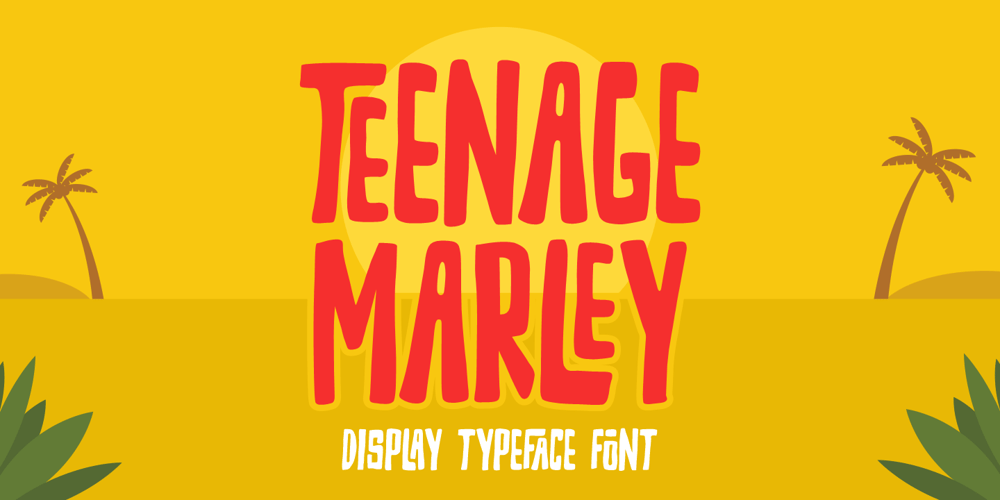
Teenage Marley Font Family was designed by Miftahul Habib and published by Teenage Foundry. Teenage Marley contains 1 styles and family package options. Introducing by Teenage Foundry!Teenage Marley is a typeface display font that embodies the spirit of adventure and the tropical vibes of a tiki paradise.One standout feature of Teenage Marley is its extensive collection of ligatures. These ligatures not only enhance the aesthetics of the font but also allow for more creative and visually appealing typographic compositions.With its tropical theme, Teenage Marley brings to mind sunny beaches, tiki huts, and surf culture. The letterforms are inspired by traditional Polynesian art, featuring intricate patterns and detailed ornamentation that add depth and visual interest.This font is ideal for various design projects that require a vibrant and whimsical touch, such as retro-inspired posters, branding materials, party invitations, and packaging. Features: Uppercase, Lowercase, Numeral, Ligatures, Punctuation & Multilingual.Multilingual contained: Afrikaans, Albanian, Asu, Basque, Bemba, Bena, Breton, Catalan, Chiga, Cornish, Danish, Dutch, English, Estonian, Filipino, Finnish, French, Friulian, Galician, German, Gusii, Indonesian, Irish, Italian, Kabuverdianu, Kalenjin, Kinyarwanda, Luo, Luxembourgish, Luyia, Machame, Makhuwa-Meetto, Makonde, Malagasy, Manx, Morisyen, North Ndebele, Norwegian Bokmål, Norwegian Nynorsk, Nyankole, Oromo, Portuguese, Quechua, Romansh, Rombo, Rundi, Rwa, Samburu, Sango, Sangu, Scottish Gaelic, Sena, Shambala, Shona, Soga, Somali, Spanish, Swahili, Swedish, Swiss German, Taita, Teso, Uzbek (Latin), Volapük, Vunjo, Zulu.For any questions please contact me 🙂Thanks!